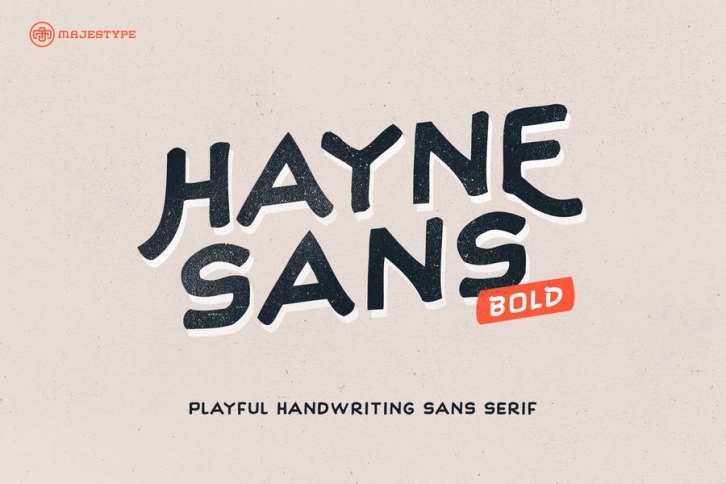
Hayne Sans is playful handwriting sans serif that comes with basic glyphs. This sans is good for headlines and another lettering project that need a handmade feel.